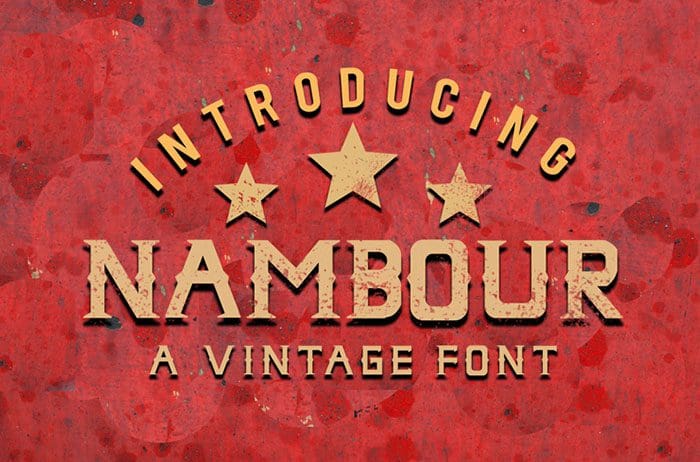
Nambour Display Font
Nambour is a bold, thick lettered and vintage styled Display Font. It looks great on a variety of designs that require a strong touch. Thanks to Handles Creative for sharing this font! Take a look at this portfolio for more of his stunning fonts.